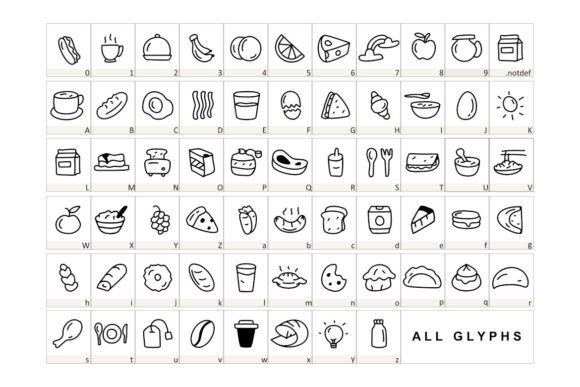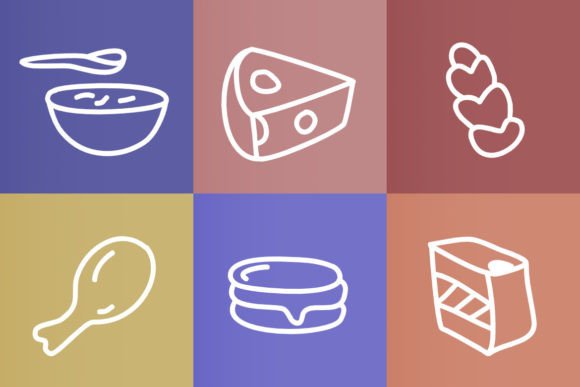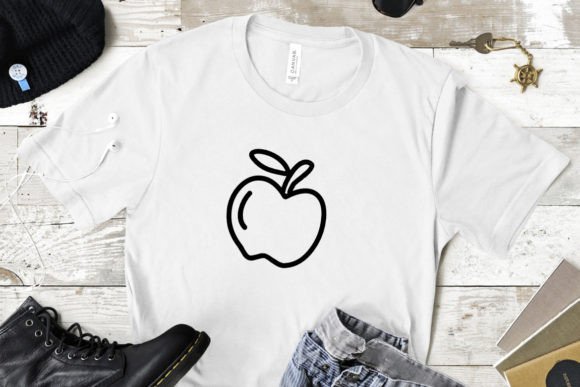
Introducing Breakfast Font: The Fun and Versatile Dingbats Font for Creative Projects
Are you a designer, crafter, or DIY enthusiast looking for a unique and playful font to elevate your creative projects? Look no further than Breakfast Font, a fun and useful dingbats font that’s perfect for a wide range of applications. From stickers and posters to t-shirts, cards, and apparel graphics, Breakfast Font is the ideal choice for adding a touch of personality and whimsy to your designs.
What is Breakfast Font?
Breakfast Font is a dingbats font, which means it’s a collection of symbols, icons, and illustrations that can be used to add visual interest and creativity to your designs. This font is specially designed to be versatile and easy to use, making it perfect for designers and crafters of all skill levels.
What Makes Breakfast Font So Special?
So, what sets Breakfast Font apart from other dingbats fonts? Here are just a few reasons why designers and crafters love this font:
- Unique and Playful Designs: Breakfast Font features a wide range of unique and playful designs, from cute food illustrations to fun shapes and symbols. These designs are sure to add a touch of personality and whimsy to your projects.
- Easily Customizable: With Breakfast Font, you can easily customize the designs to fit your needs. Change the color, size, and style to match your brand or project’s aesthetic.
- Perfect for a Wide Range of Projects: Whether you’re working on a sticker, poster, t-shirt, or card, Breakfast Font is the perfect choice. This font is versatile and can be used for a wide range of projects, making it a great addition to your design library.
- High-Quality Design: Breakfast Font is designed with high-quality graphics, ensuring that your projects look professional and polished.
How to Use Breakfast Font in Your Projects
Using Breakfast Font in your projects is easy. Here are a few tips to get you started:
- Stickers: Use Breakfast Font to create fun and colorful stickers for parties, events, or everyday use.
- Posters: Add a touch of personality to your posters with Breakfast Font’s unique and playful designs.
- T-Shirts: Use Breakfast Font to create eye-catching and fun designs for t-shirts, hoodies, and other apparel.
- Cards: Add a personal touch to your greeting cards, invitations, and other paper crafts with Breakfast Font.
- Apparel Graphics: Use Breakfast Font to create custom graphics for your apparel, including hats, bags, and more.
Why Designers and Crafters Love Breakfast Font
Designers and crafters love Breakfast Font for many reasons. Here are a few:
- Easy to Use: Breakfast Font is easy to use, even for those with limited design experience.
- Versatile: This font is versatile and can be used for a wide range of projects.
- Fun and Playful: Breakfast Font adds a touch of personality and whimsy to any project.
- High-Quality Design: The font is designed with high-quality graphics, ensuring that your projects look professional and polished.
| Font Name | Breakfast Font |
If you’re looking for a fun and versatile dingbats font to elevate your creative projects, look no further than Breakfast Font. With its unique and playful designs, easily customizable features, and high-quality graphics, this font is perfect for designers and crafters of all skill levels. Try Breakfast Font today and see the amazing results for yourself!